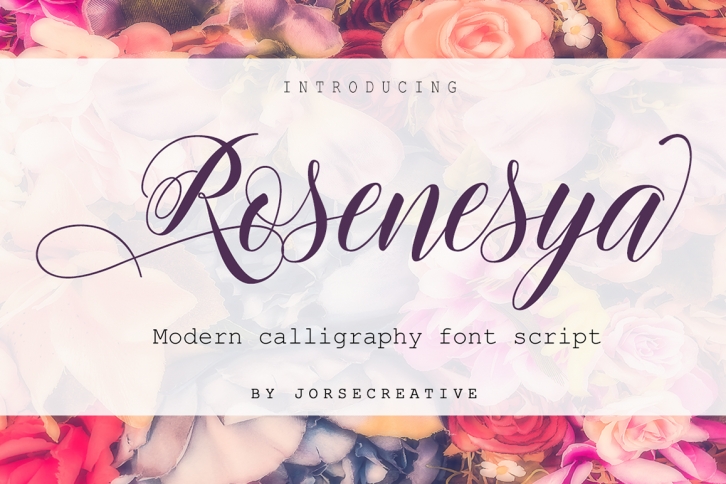
ROSENESYA Script
Rosenesya Script is a stylish calligraphy font that features a varying baseline, smooth line, classic and elegant touch. Can be used for various purposes.such as headings, signature, logos, wedding invitation, t-shirt, letterhead, signage, lable, news, posters, badges etc.
Rosenesya Script features 450+ glyphs and 219 alternate characters. including initial and terminal letters, alternates, ligatures and multiple language support.
The Features of this fonts is:
• Standart ligatures
• Stylistic Alternates
• PUA Unicode (Private Use Areas)
• Swash
Languages supported: Breton, Catalan, Czech, Danish, Estonian,French, German, Hungarian, Icelandic, Italian, Romanian, Scottish Gaelic, Slovak, Latvian, Lithuanian, Norwegian, English, Finnish, Polish, Portuguese, Slovenian, Spanish, Swedish, Turkish, Welsh. Basically, all european languages that are based on latin alphabet.